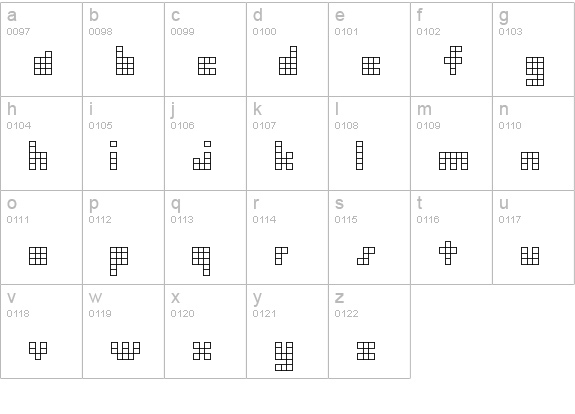
square type 2.0 Font Details
Introducing the all-new Square Type 2.0 font, a stunning addition to your typography collection that is bound to captivate and inspire. This modern and sleek font is perfect for a variety of design projects, whether you're creating eye-catching logos, professional presentations, or stylish social media graphics. With its clean lines and bold, geometric shapes, Square Type 2.0 exudes a sense of strength and sophistication. Its square-shaped characters give it a distinct and edgy look, making it the ideal choice for those seeking a font that truly stands out from the crowd. Each letter has been meticulously crafted to ensure maximum legibility, ensuring your message is delivered with clarity and impact. But what truly sets Square Type 2.0 font apart is its availability as a free download at FontsMarket.com. Yes, you read that right - this incredible font is freely available for you to download and use in your personal and commercial projects. FontsMarket.com is renowned for offering premium-quality fonts at no cost, and Square Type 2.0 is no exception. So, whether you're a professional designer looking to elevate your work or a creative enthusiast wanting to add a touch of modernity to your personal projects, Square Type 2.0 font is the perfect choice. Download it today from FontsMarket.com and unlock a world of endless design possibilities. Don't miss out on this incredible opportunity to enhance your creations with a font that is both stylish and free!